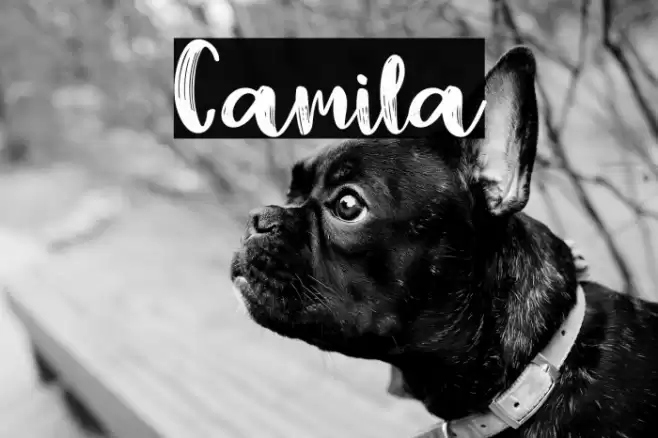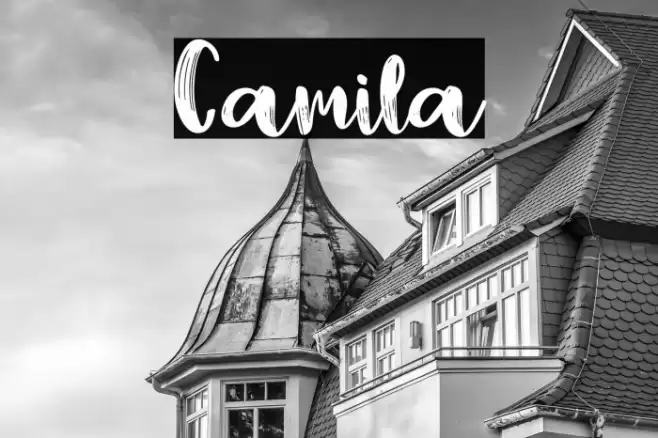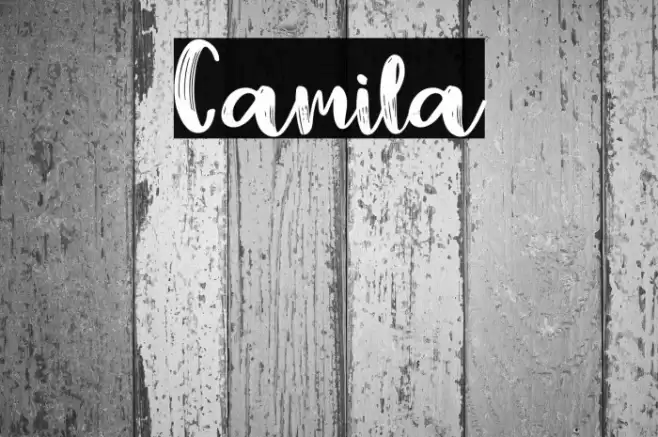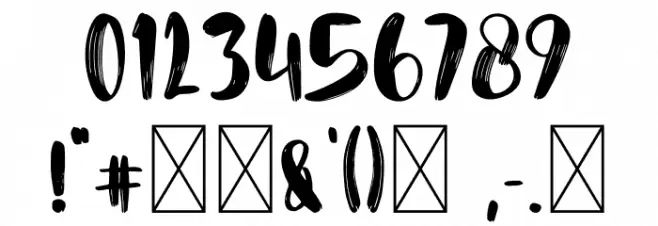
Camila Font
Camila Description
This font features a bold, expressive style with a handwritten appearance. The strokes are thick and dynamic, giving it a lively and energetic feel. The uppercase letters are bold and slightly condensed, while the lowercase letters maintain a flowing, cursive style. The numbers and special characters follow the same expressive design, making the font versatile for various creative applications. The brush-like texture adds a personal touch, making it suitable for projects that require a humanistic and artistic flair.
A bold, expressive handwritten font with a brush-like texture from Regular fonts.
- Proposed Projects: Ideal for branding, posters, social media graphics, and invitations that require a personal and artistic touch.